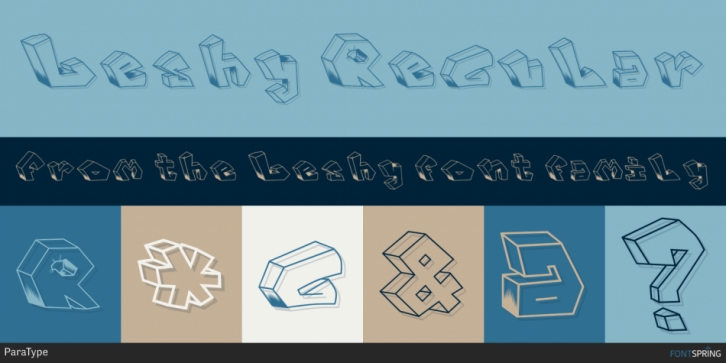
Designed by Fedor Saveliev and Olga Ryabinina, Leshy is a display font family. This typeface has two styles and was published by ParaType.
An original volume decorative typeface is imitating of broken stones. The face is inspired by graffiti letterforms. Solid and inverted styles are available. Designed by Fedor Savel’ev and Olga Ryabihina in 2003 and licensed by ParaType. For use in display typography.